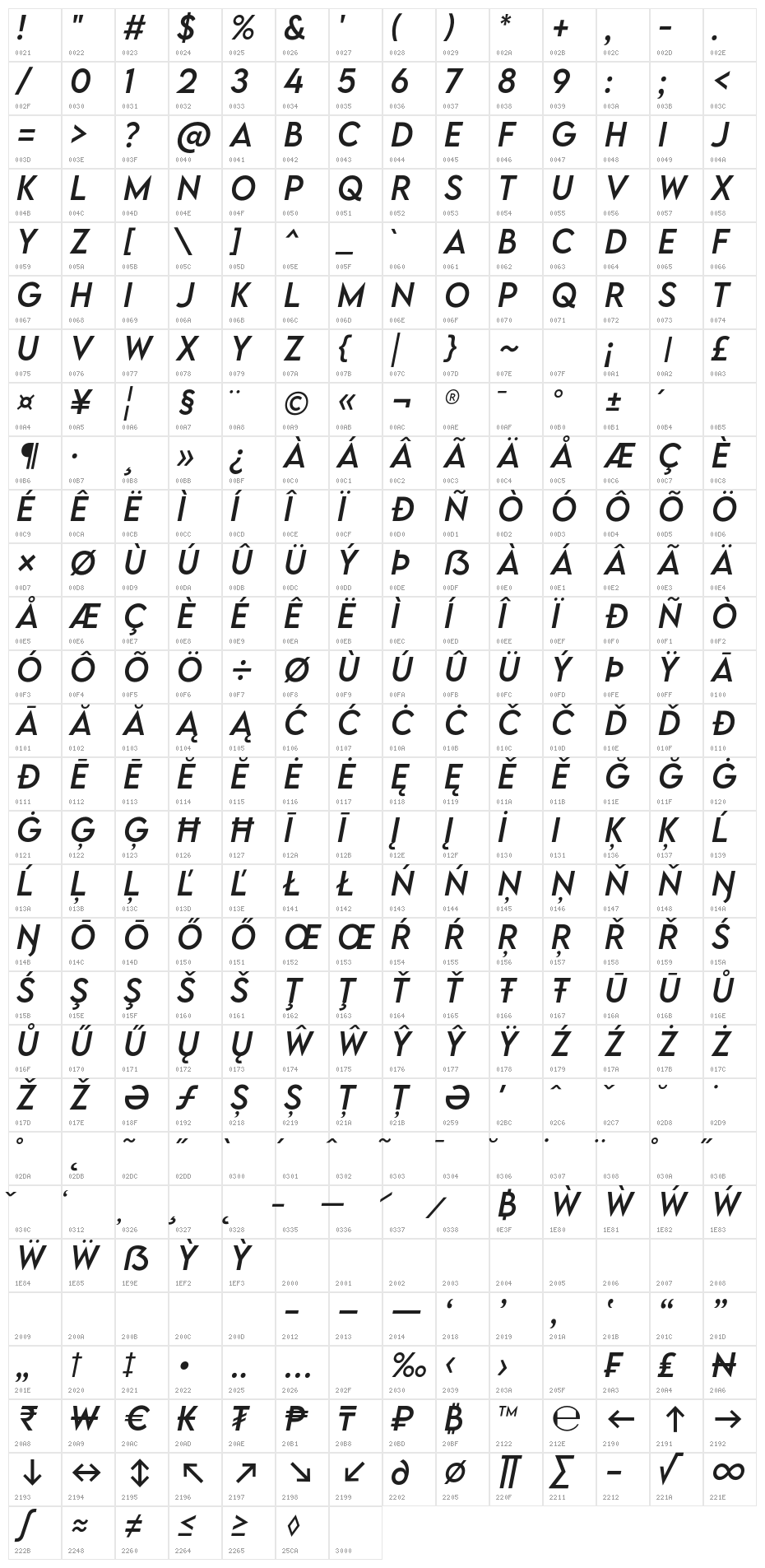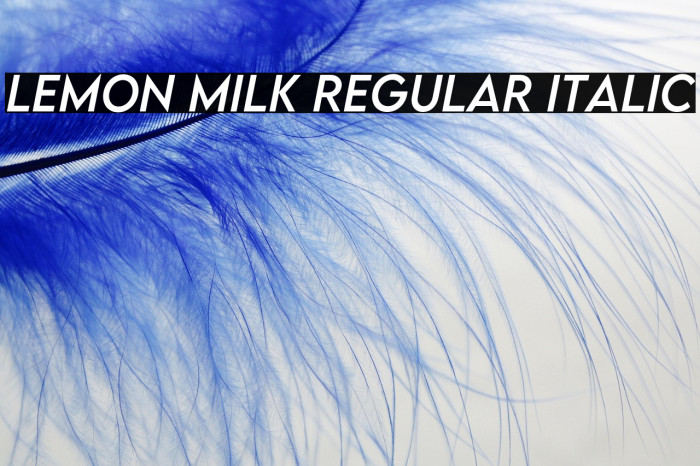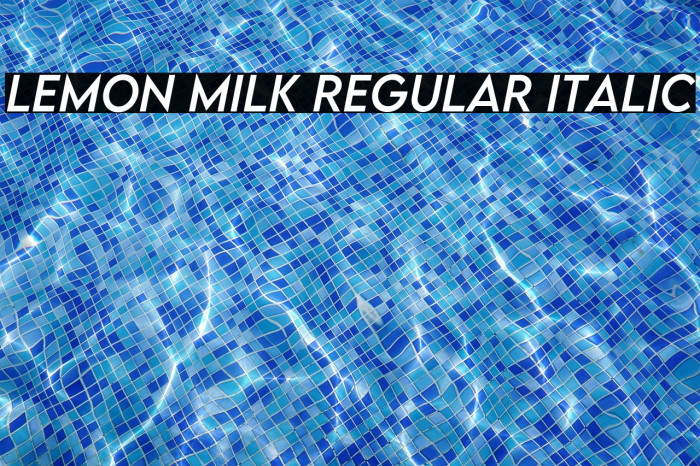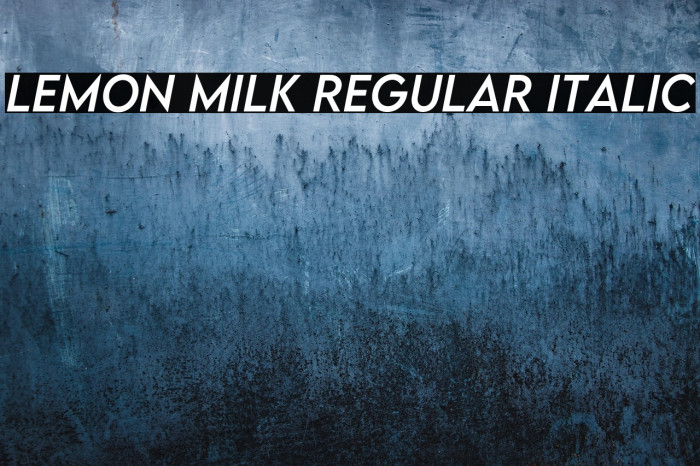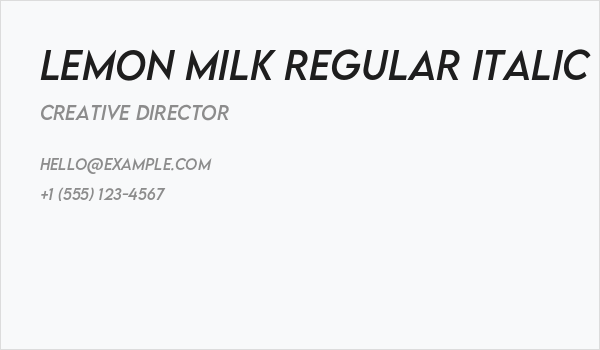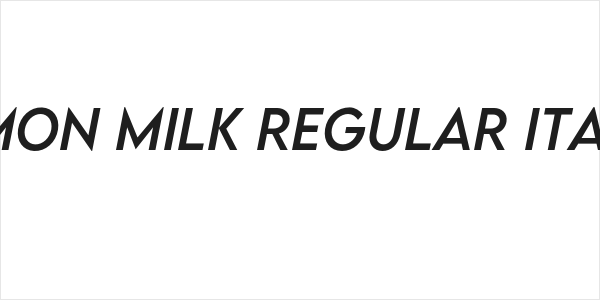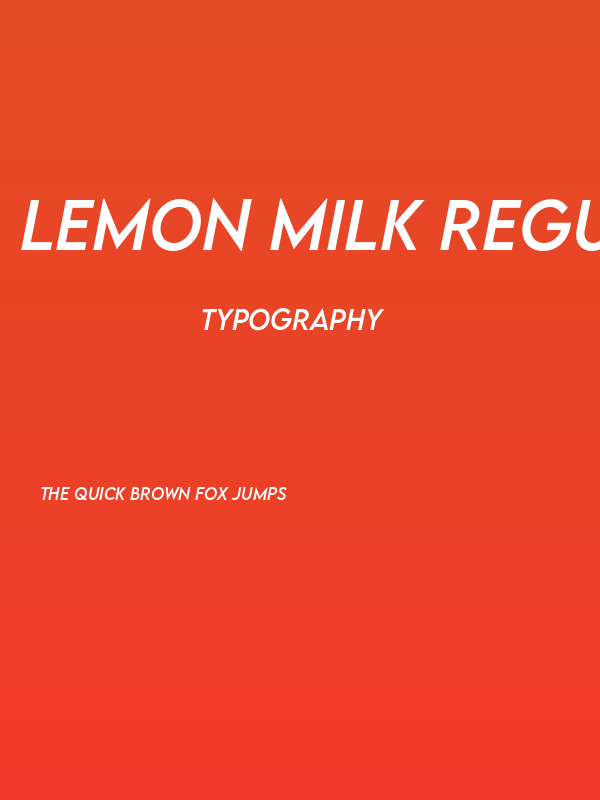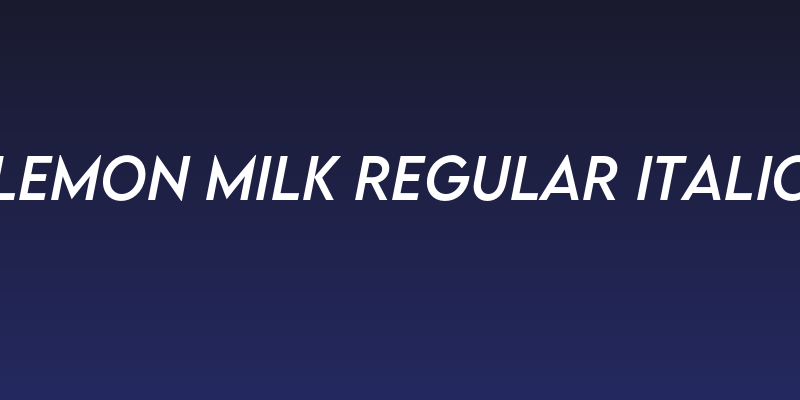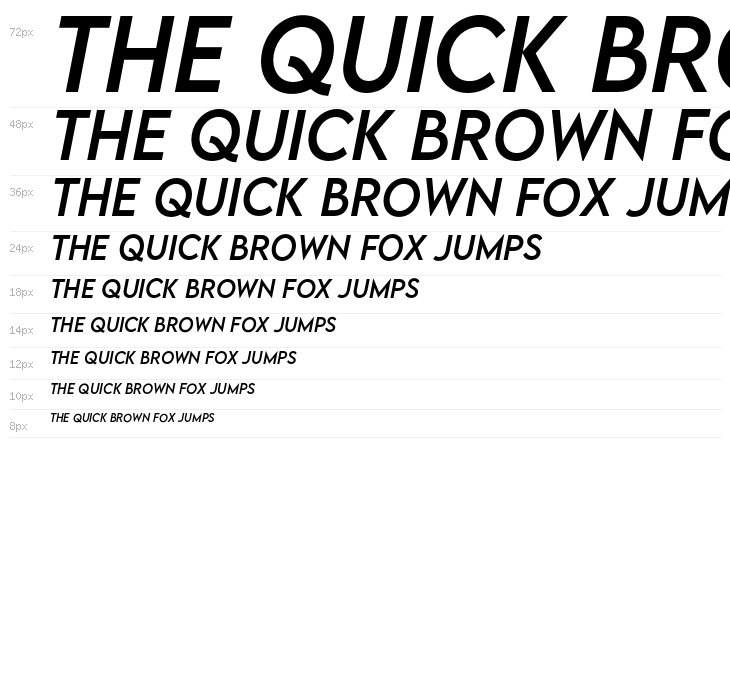
LEMON MILK Regular Italic Font
LEMON MILK Regular Italic Description
This font features a sleek and modern design with a slight italic slant, giving it a dynamic and forward-moving appearance. The characters are clean and geometric, with consistent stroke widths that provide a uniform look. The uppercase and lowercase letters maintain a harmonious balance, while the numerals are clear and easy to read. Special characters are well-integrated, ensuring versatility in various design contexts. The overall style is contemporary, making it suitable for a wide range of applications.
| Proposed Projects | Ideal for branding, advertising, and editorial design projects where a modern and dynamic typeface is desired. |